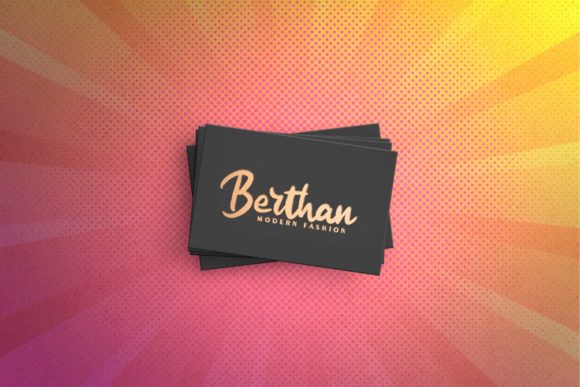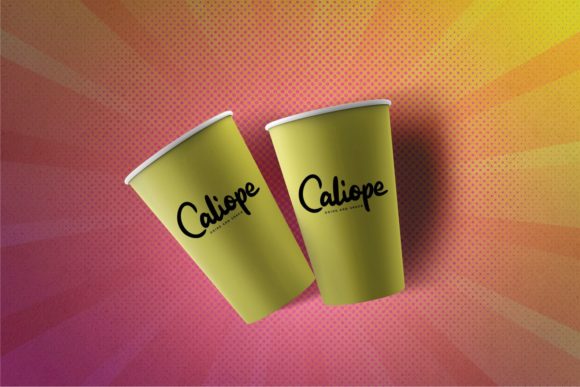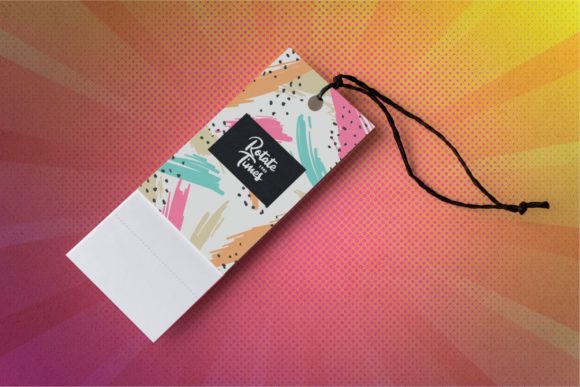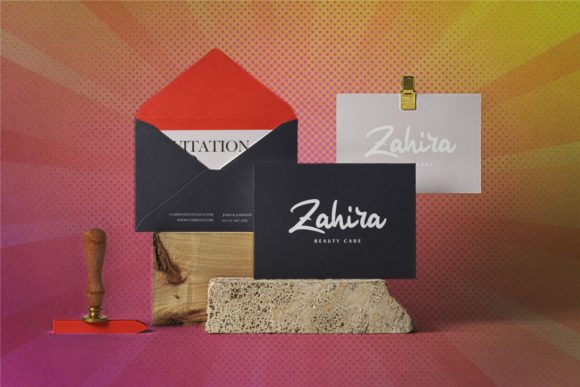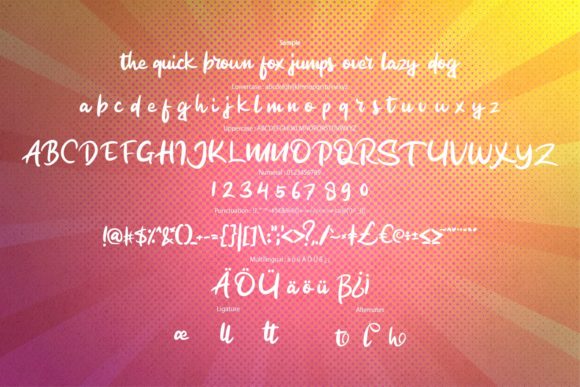
Unleash Your Creativity with the Perfect Handwritten Font
Have you ever sat at your desk, staring blankly at a blank canvas, waiting for inspiration to strike? The blank page can be intimidating, but it’s also a chance to create something truly unique. For designers, finding the perfect font can be the key to unlocking that creative spark.
That’s where the Adabe Font comes in – a trendy and bold handwritten font that’s sure to add a touch of personality to any design. With its smooth flow and versatility, Adabe Font is perfect for a wide range of design ideas, from branding and advertising to digital products and social media graphics.
As a valuable tool for designers, Adabe Font offers a level of customization and expressiveness that’s hard to find in more traditional fonts. Its unique style and feel make it an excellent choice for anyone looking to add a bit of flair to their work.
Key Features of Adabe Font
- Unique Characteristics: Adabe Font features a unique, hand-drawn style with subtle irregularities, giving it a distinctive and human touch.
- Font Pairing: Adabe Font is designed to be paired with other fonts, creating a harmonious and balanced visual experience in various design applications.
Adabe Font Review
As a designer, I’ve had the chance to work with the Adabe font, and I must say it’s a unique addition to any design project. Here are my honest thoughts on what works well and what doesn’t.
- Exotic and elegant feel: Adabe font has a distinct, exotic feel to it, which can add a touch of sophistication to any design project.
- Customizable: The font comes in a range of weights, from light to bold, allowing you to customize its look to suit your design needs.
- Legible: Despite its ornate appearance, Adabe font is surprisingly legible, making it a great choice for body text.
- Readability at small sizes: While Adabe font is legible, it can become difficult to read at very small sizes, making it less suitable for projects requiring tiny text.
- Not ideal for body text: While it’s legible, Adabe font is better suited for headlines and titles, as its ornate appearance can make it overwhelming for large blocks of text.
The Adabe font is a beautiful, unique addition to any design project. Its exotic feel and customizable weights make it a great choice for adding a touch of sophistication to your designs. However, its limitations make it less suitable for projects requiring small text or large blocks of body text. Overall, I’d recommend Adabe font for projects that require a elegant, eye-catching headline or title.
Adabe Font Practical Application Guide
For a professional look, use Adabe Font for headings and pair it with a clean sans-serif font for body text.
Use Adabe Font for titles, headings, and other design elements that require a touch of elegance.
Tips for Getting the Most Out of Adabe Font
Use Adabe Font in conjunction with other elegant fonts to create a harmonious design.
Experiment with different font sizes and colors to achieve the desired effect.
Use Adabe Font for titles, headings, and other design elements that require a touch of sophistication.
Alternatives to Adabe Font
Playfair Display is a luxurious and elegant serif font, ideal for creating a high-end feel in branding, advertising, and editorial design. It features intricate details and ornate flourishes, making it perfect for use in headings and titles. Playfair Display is a more traditional and classic choice compared to Adabe Font, which has a more modern and minimalist aesthetic.